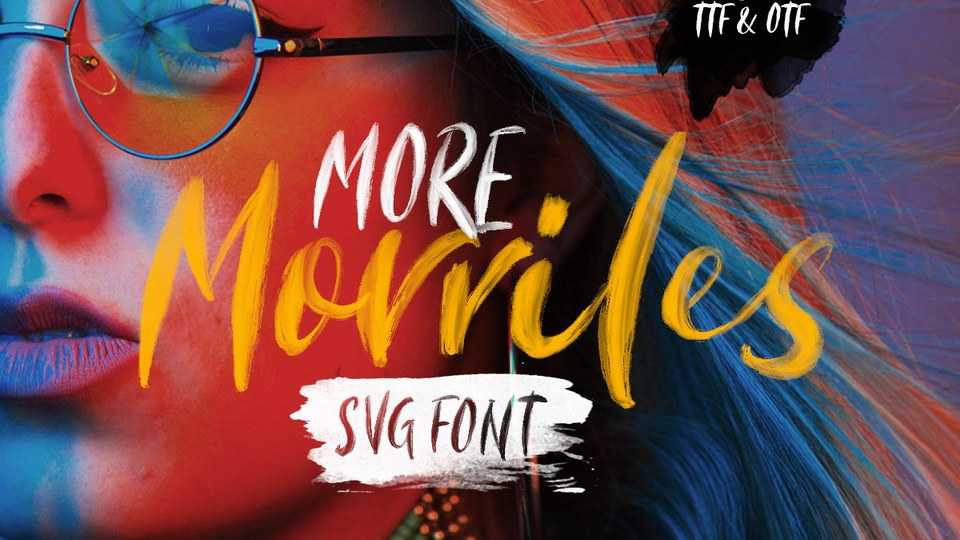
Download Morriles font, a rough handmade brush typeface. You can use Morriles for various purposes such as making realistic handwriting, for promotions, or other projects that will make your design more real as handmade.